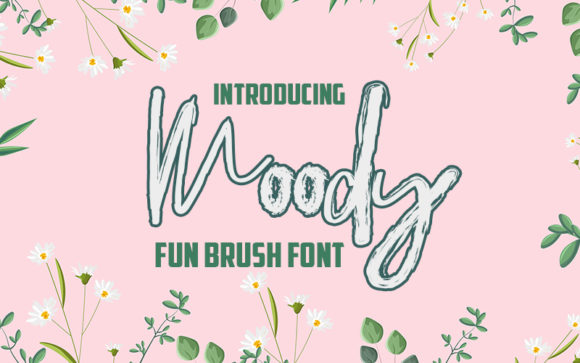
Introducing Moody Font - The Decorative Font That Sparks Joy and Creativity!
In the realm of fonts, there lives a captivating enigma named Moody Font, a decorative masterpiece that exudes fun, quirkiness, and authenticity. Crafted by the artistic hands of Graph Arts, Moody Font is not just a collection of letters; it's an invitation to unleash your imagination and let your creative spirit soar.
Whether you're a seasoned design professional or simply someone with a passion for the extraordinary, Moody Font is the perfect companion for your next creative adventure. Its playful curves and whimsical strokes will transform your words into captivating works of art, guaranteed to leave a lasting impression on all who encounter them.
But don't just take our word for it. Here's a glimpse into the enchanting world of Moody Font:
* **Invitations that Enchant:** Send out invitations that ignite excitement and set the tone for an unforgettable celebration. Moody Font's playful nature will make every invite a cherished keepsake, ensuring that your special day is etched in the memories of your guests.
* **Greeting Cards with a Quirky Twist:** Spread joy and laughter with greeting cards adorned with Moody Font's unique charm. Whether it's a birthday wish or a heartfelt message, your words will come alive with an irresistible touch of whimsy.
* **Social Media Posts that Pop:** Let your social media presence shine with Moody Font's eye-catching appeal. Your posts will stand out from the crowd, captivating followers with their vibrant personality and captivating charm.
* **Logos that Define Your Brand:** Create a logo that truly embodies your brand's spirit with Moody Font's distinctive flair. Its playful curves and quirky strokes will leave an unforgettable mark, ensuring that your brand stands out in the competitive marketplace.
* **Packaging that Inspires:** Elevate your packaging designs with Moody Font's captivating charm. Its intricate details and whimsical touch will transform ordinary boxes into extraordinary works of art, inviting customers to experience the magic within.
* **Website Headers that Captivate:** Welcome visitors to your website with a header adorned with Moody Font's captivating presence. Its vibrant strokes and playful energy will create an unforgettable first impression, setting the stage for an engaging and memorable online experience.
* **T-shirts with a Touch of Fun:** Unleash your inner fashionista with T-shirts that showcase Moody Font's playful personality. Its unique charm will turn heads wherever you go, adding a touch of quirky style to your wardrobe.
* **Book Covers that Enchant:** Captivate readers from the very first page with book covers featuring Moody Font's enchanting allure. Its whimsical curves and playful strokes will create an irresistible invitation to delve into the pages that lie within.